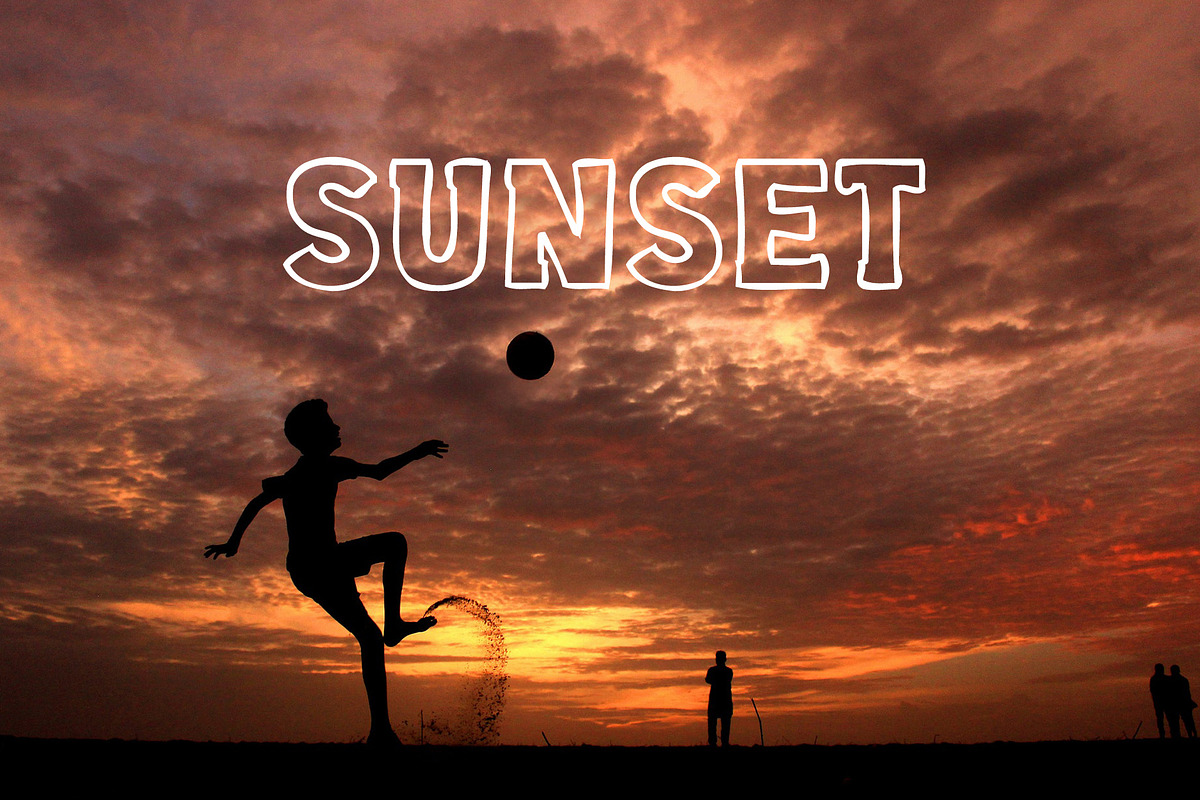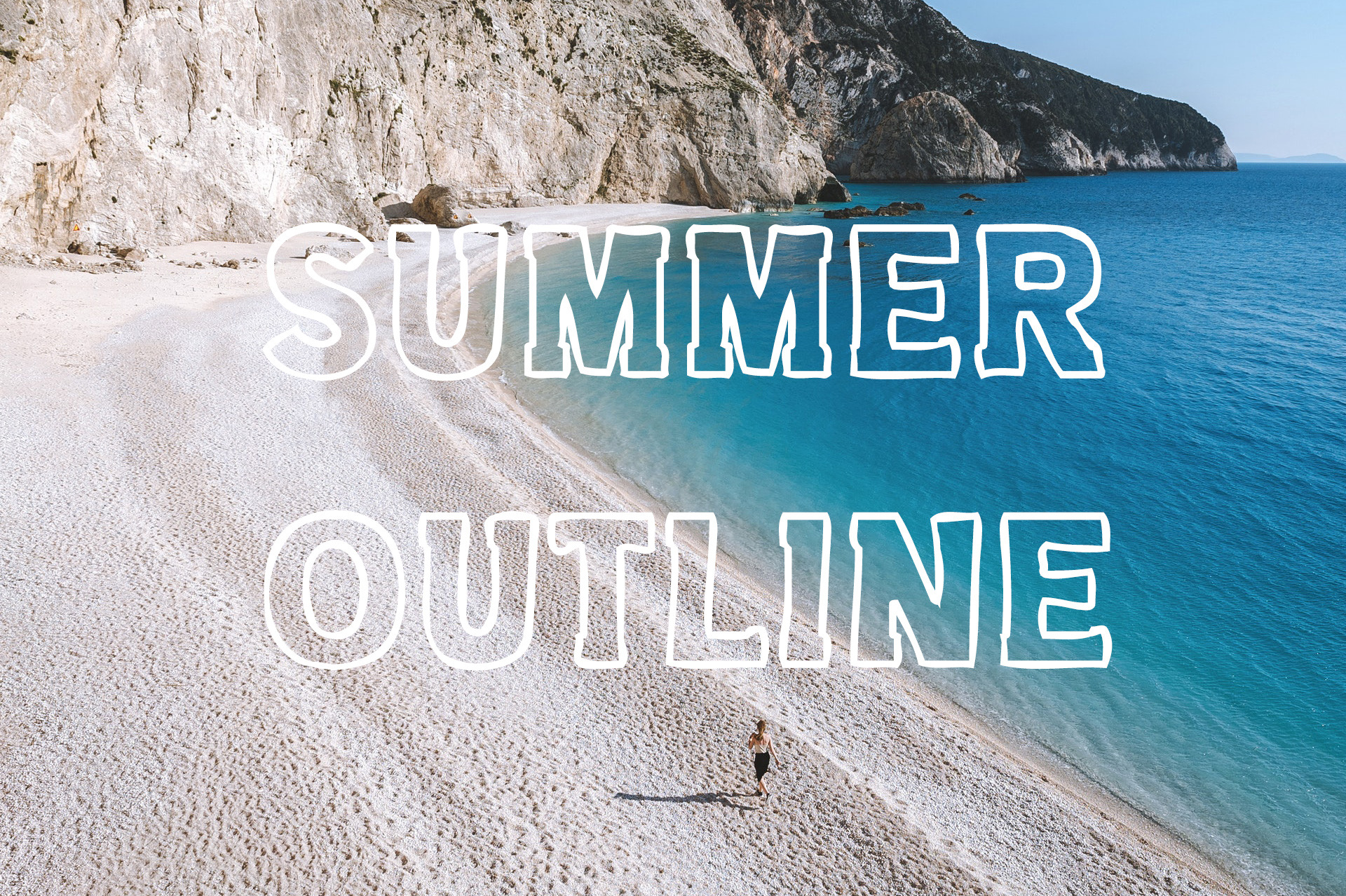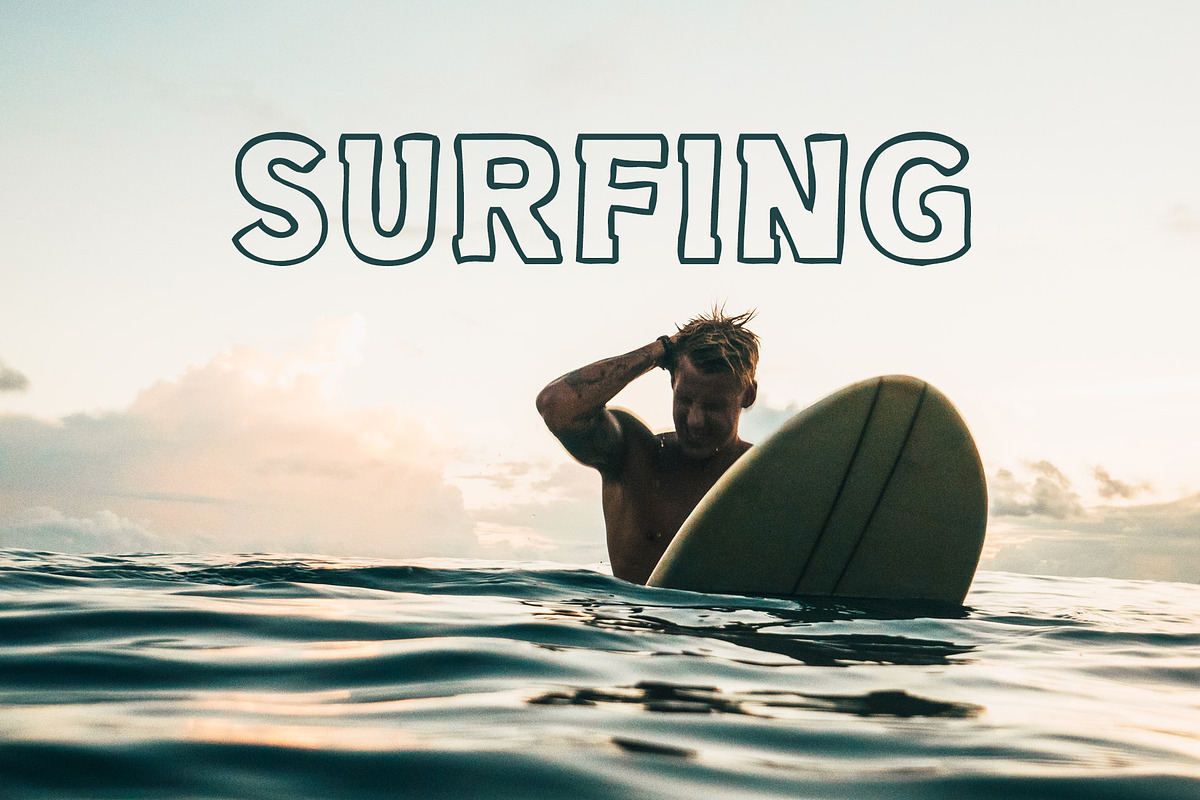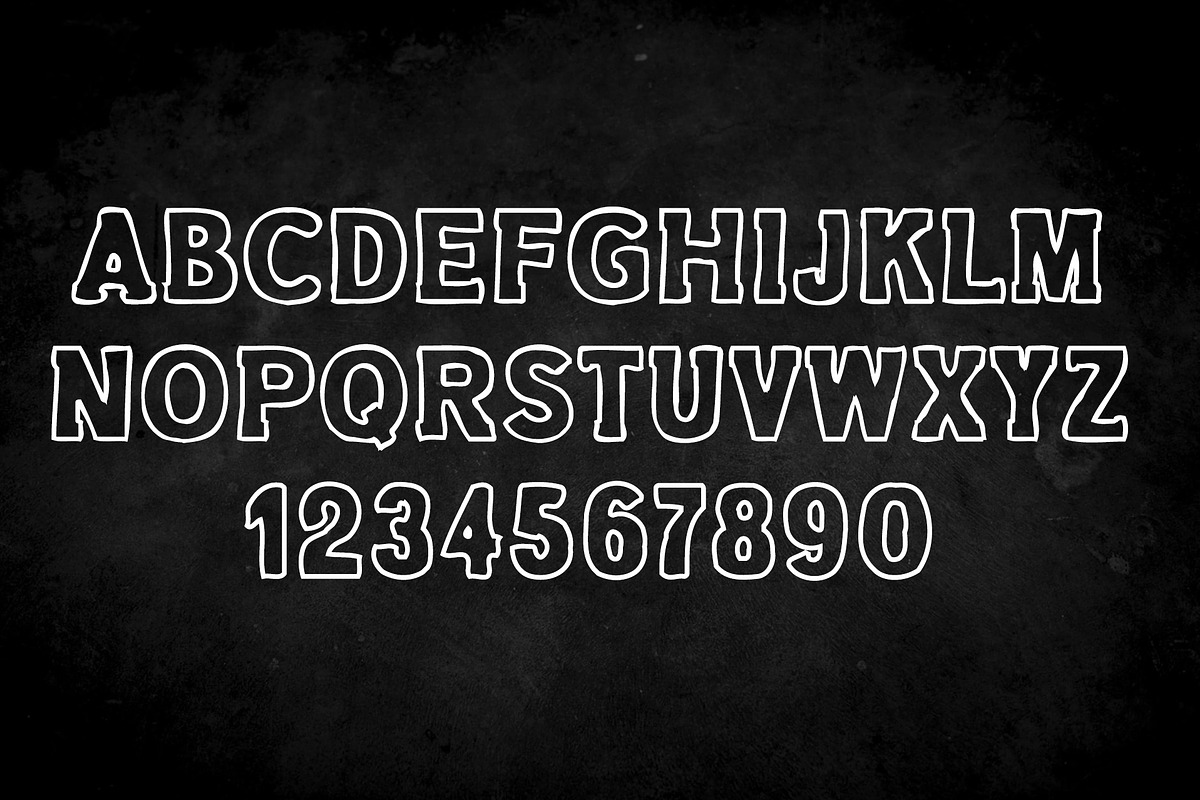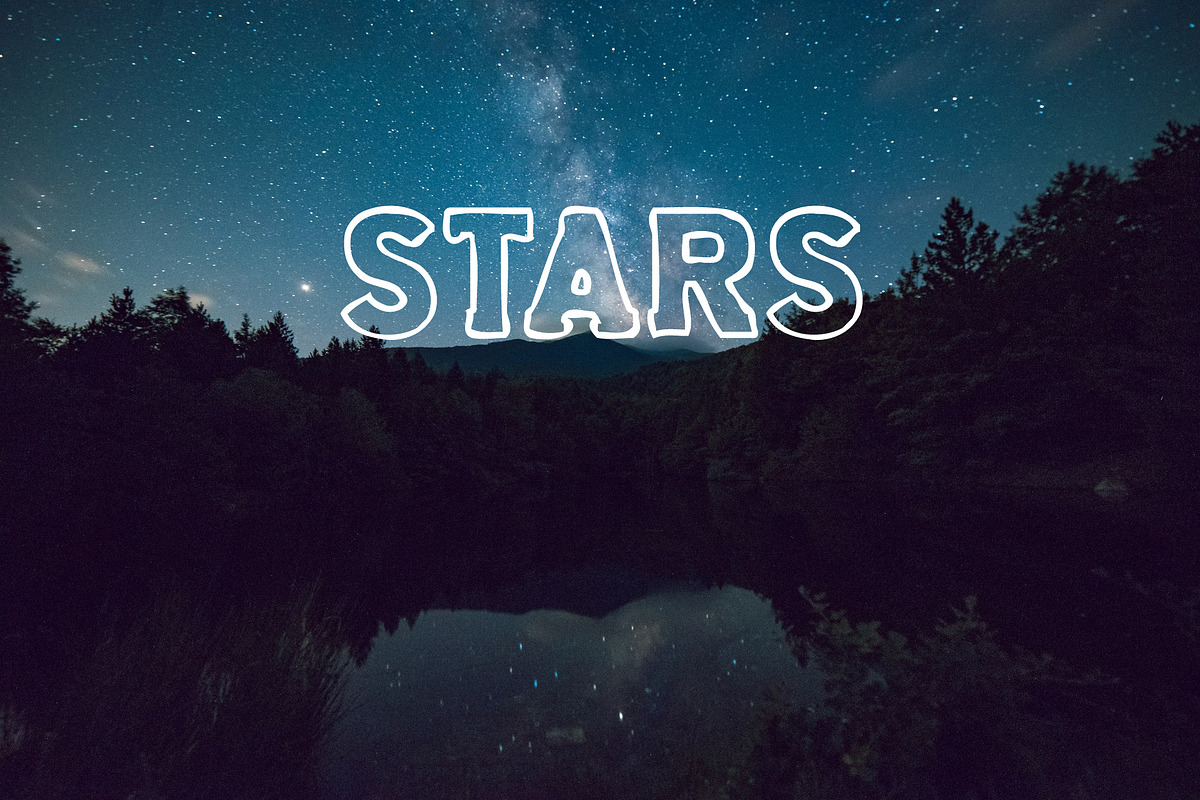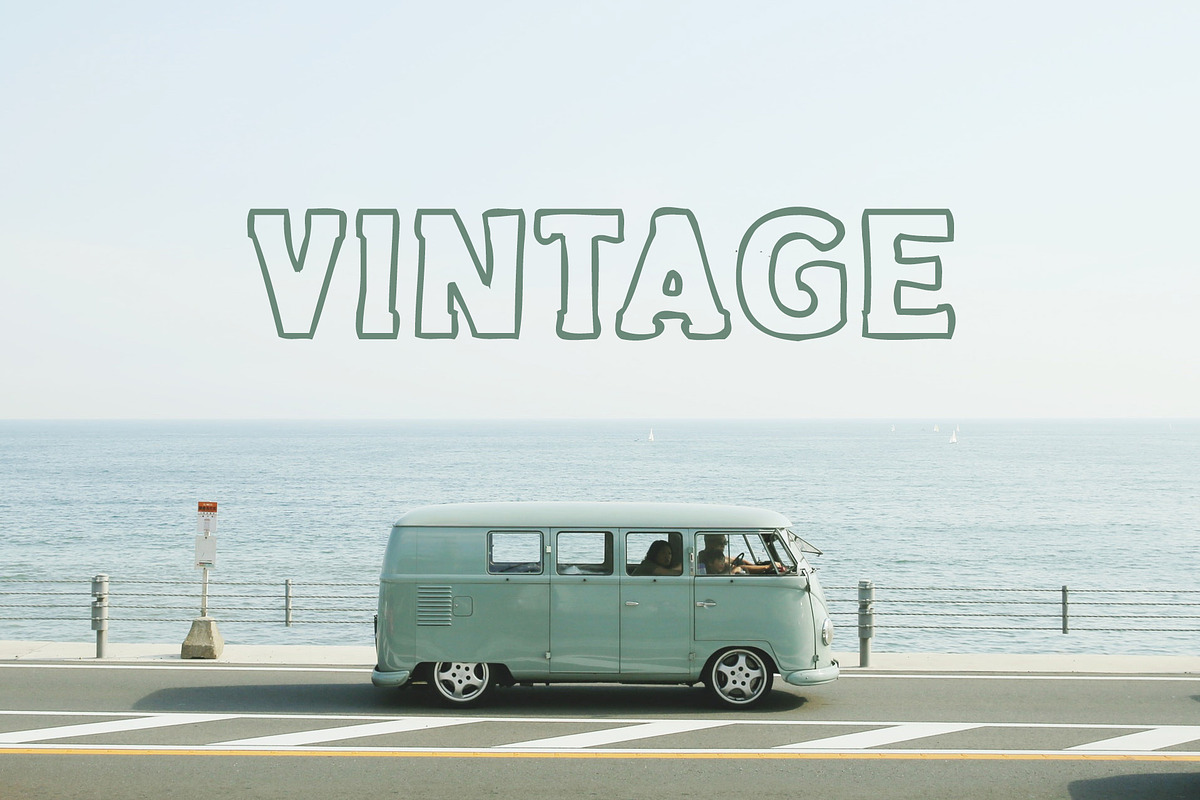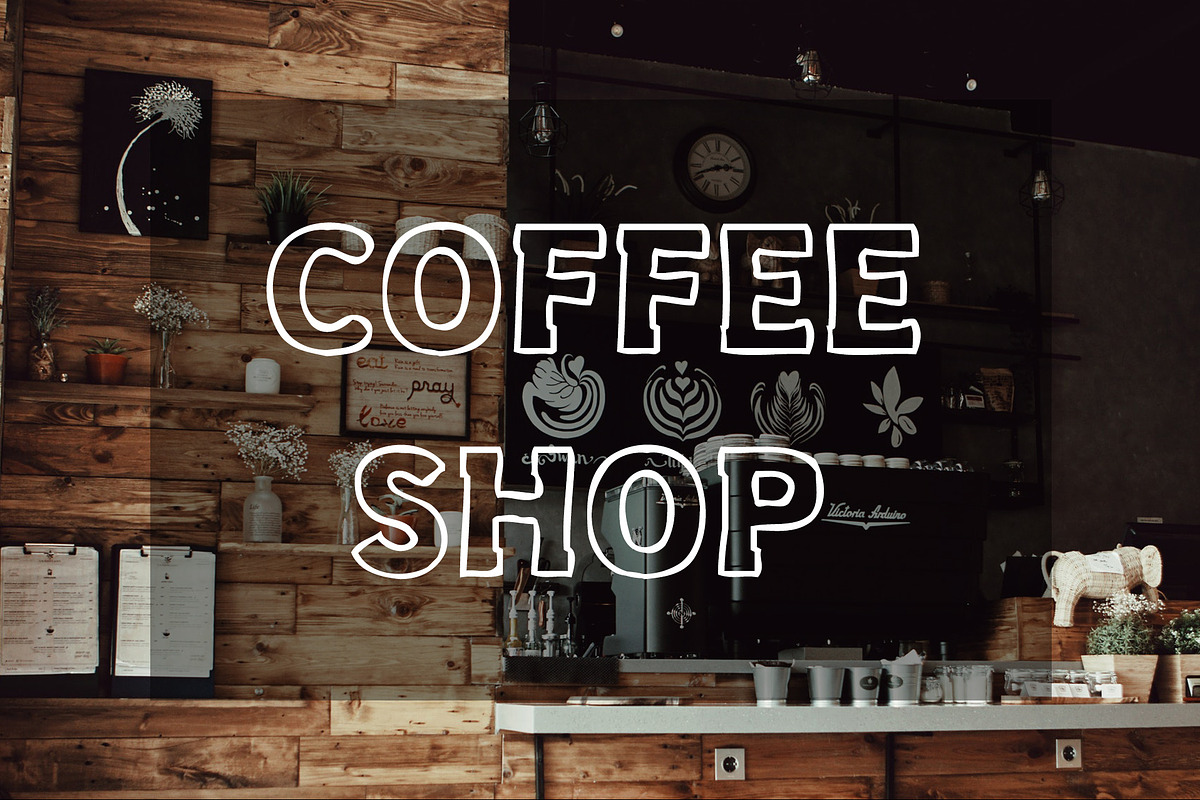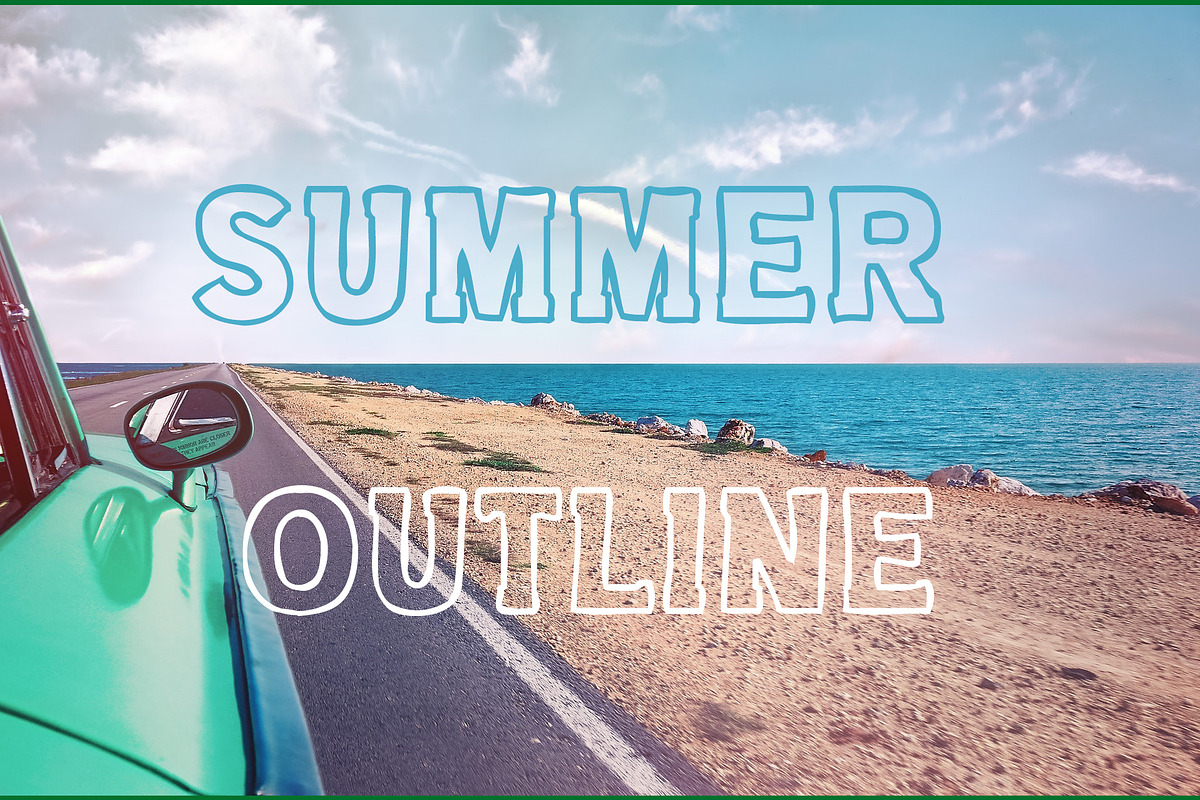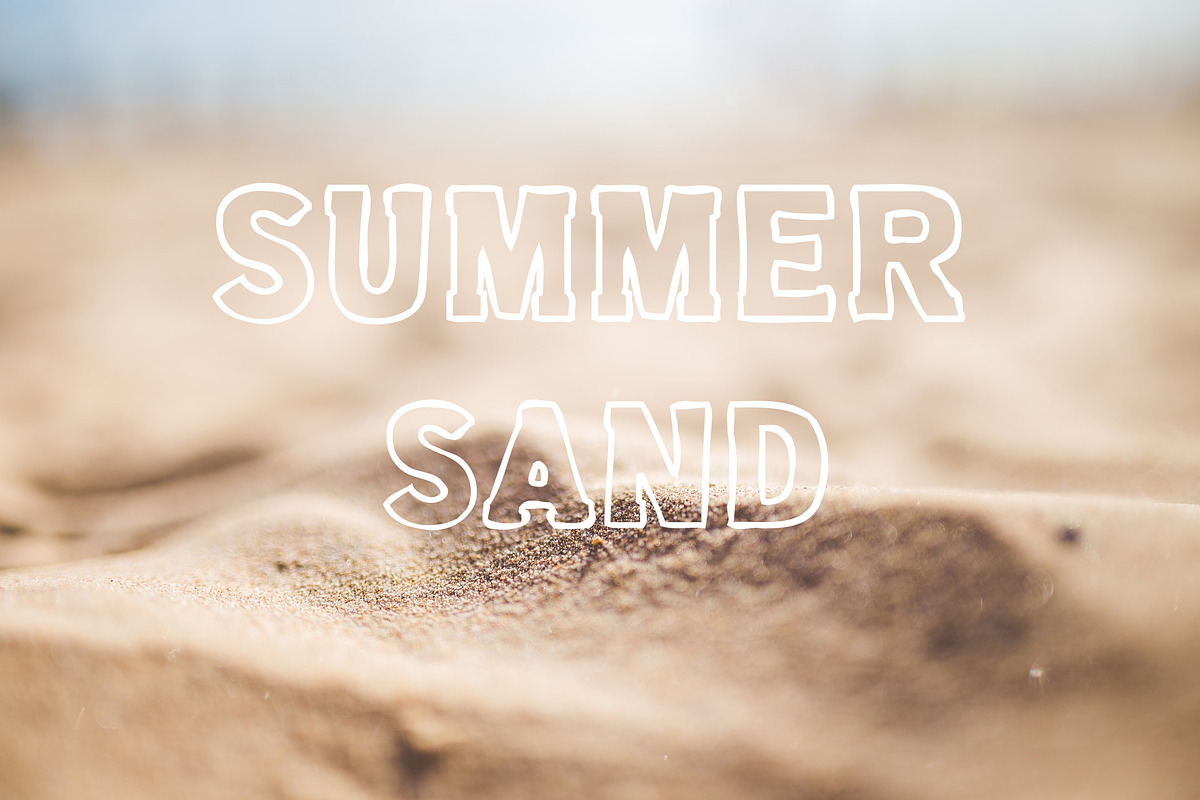
Summer Outline Font
Summer Outline Font.
Summer Outline is a bold and assertive display font. It is incredibly fit for racing designs or sporting events in general. Add it confidently to your projects, and you will love the results.